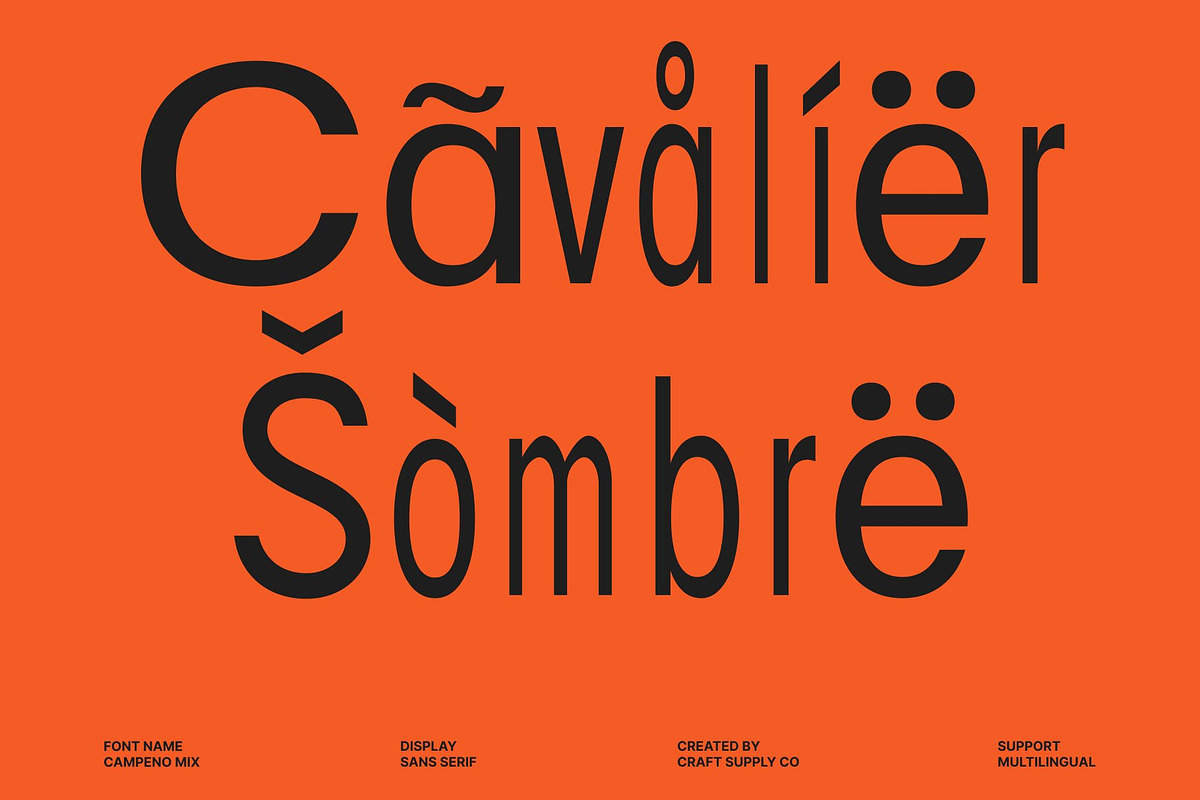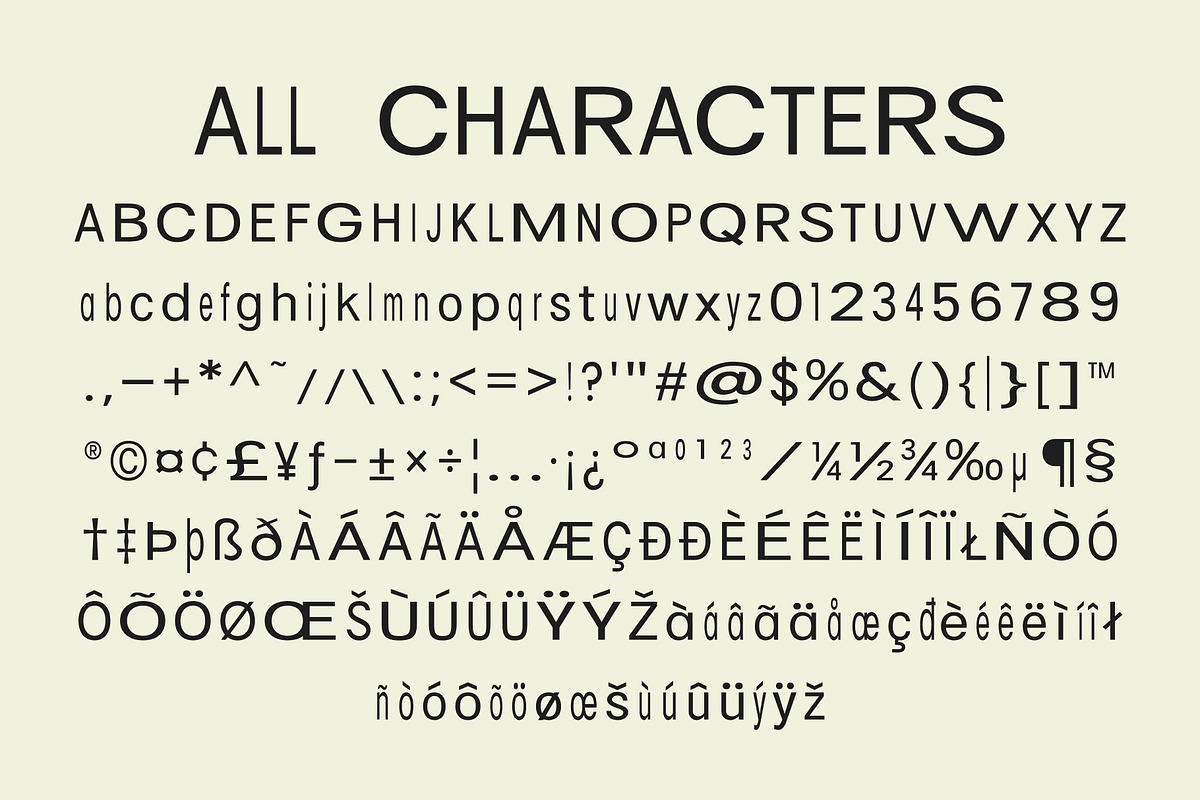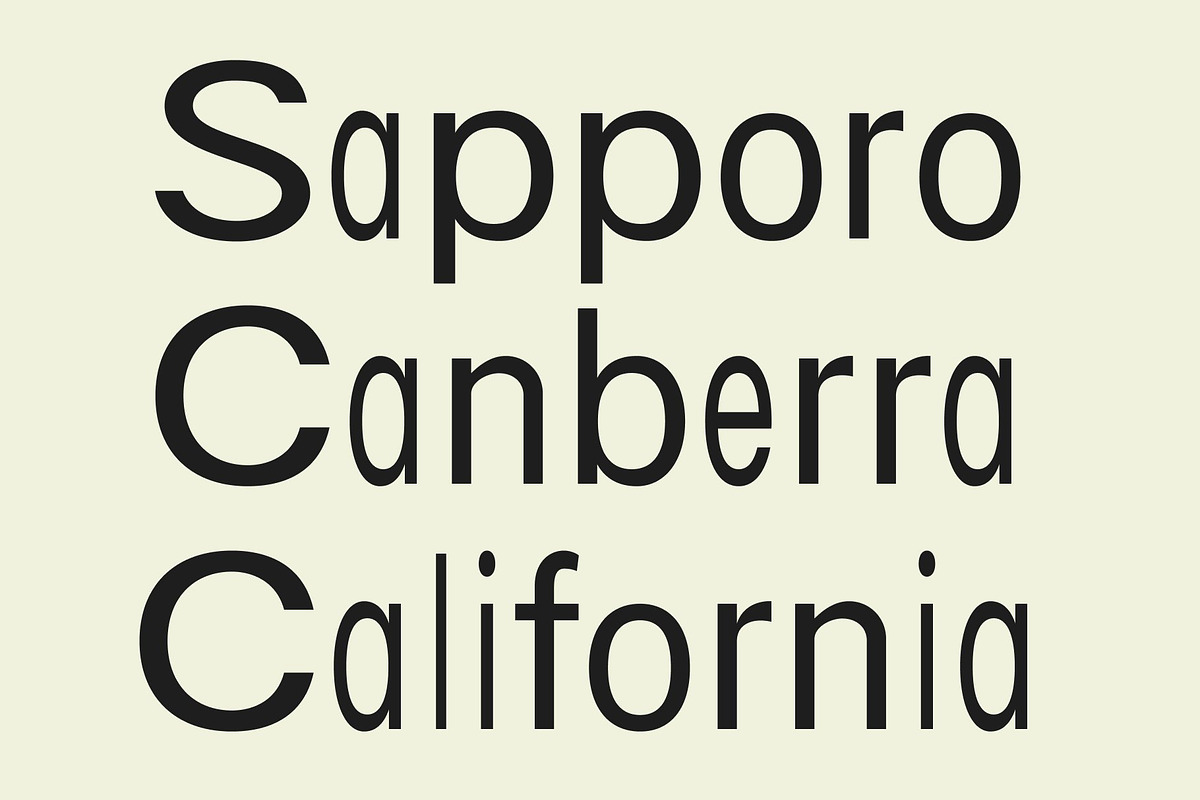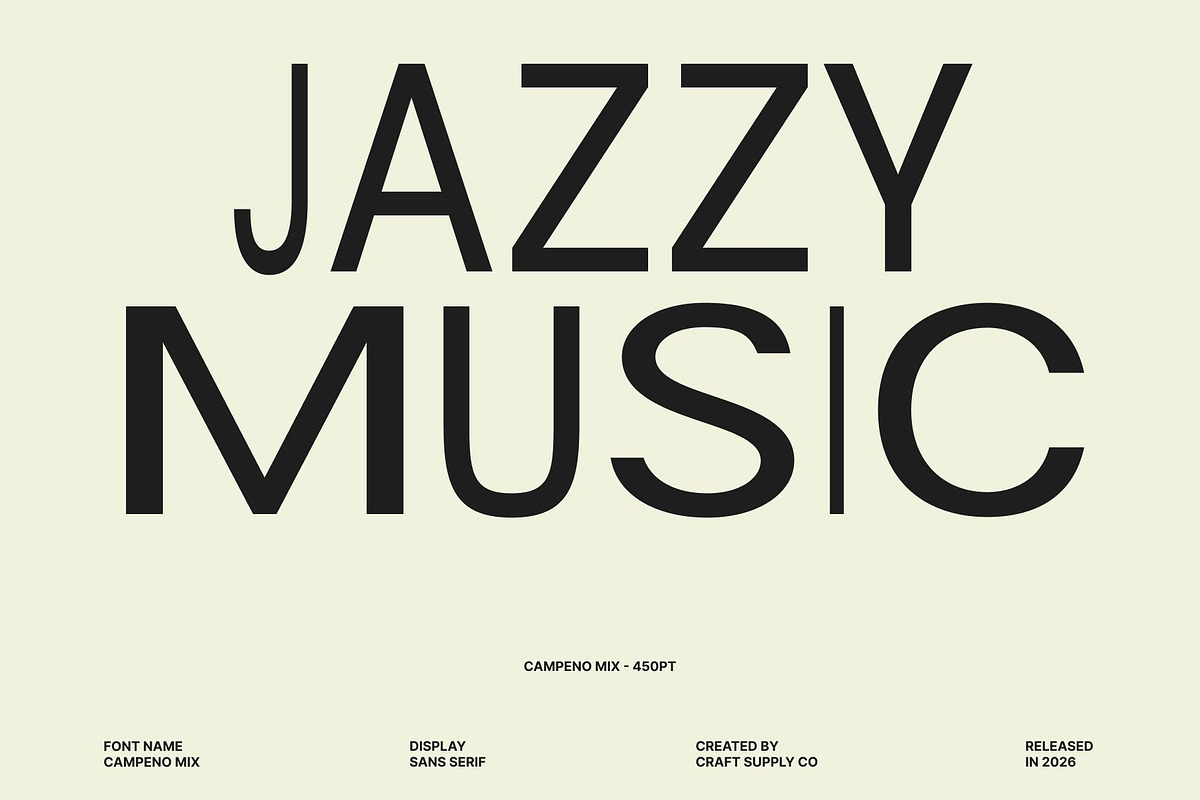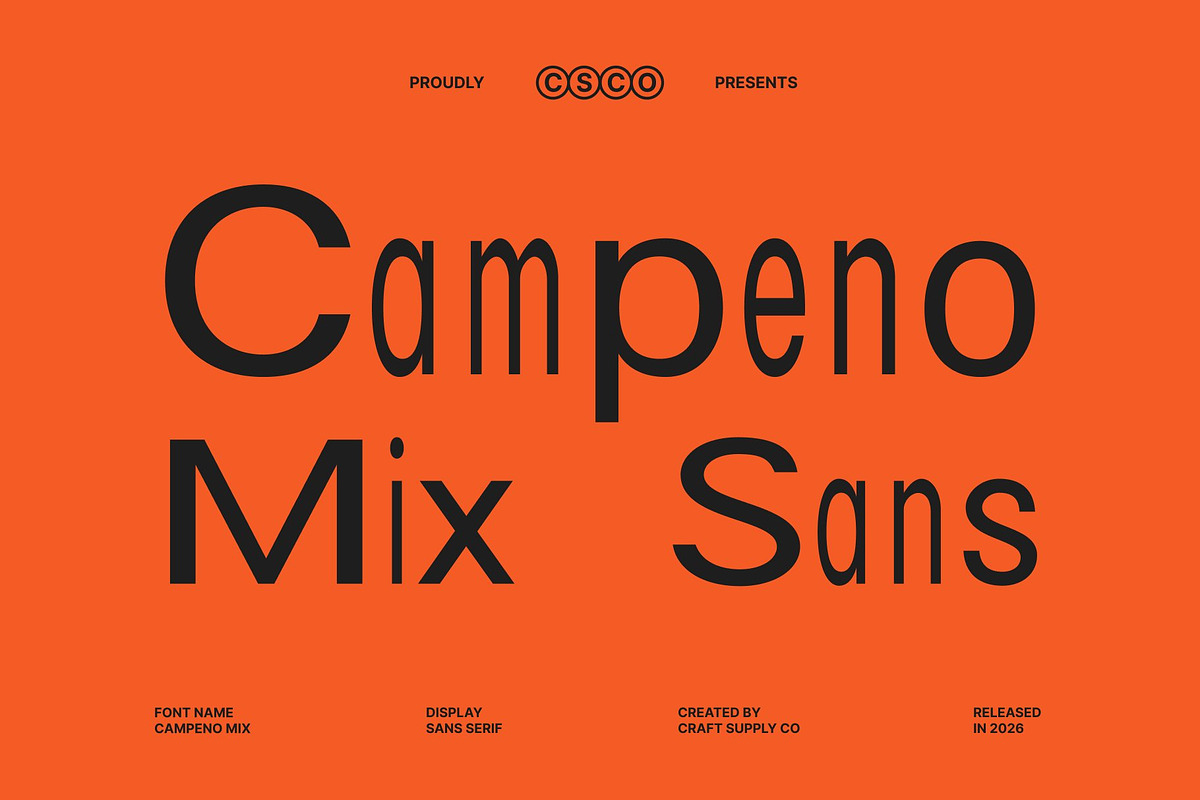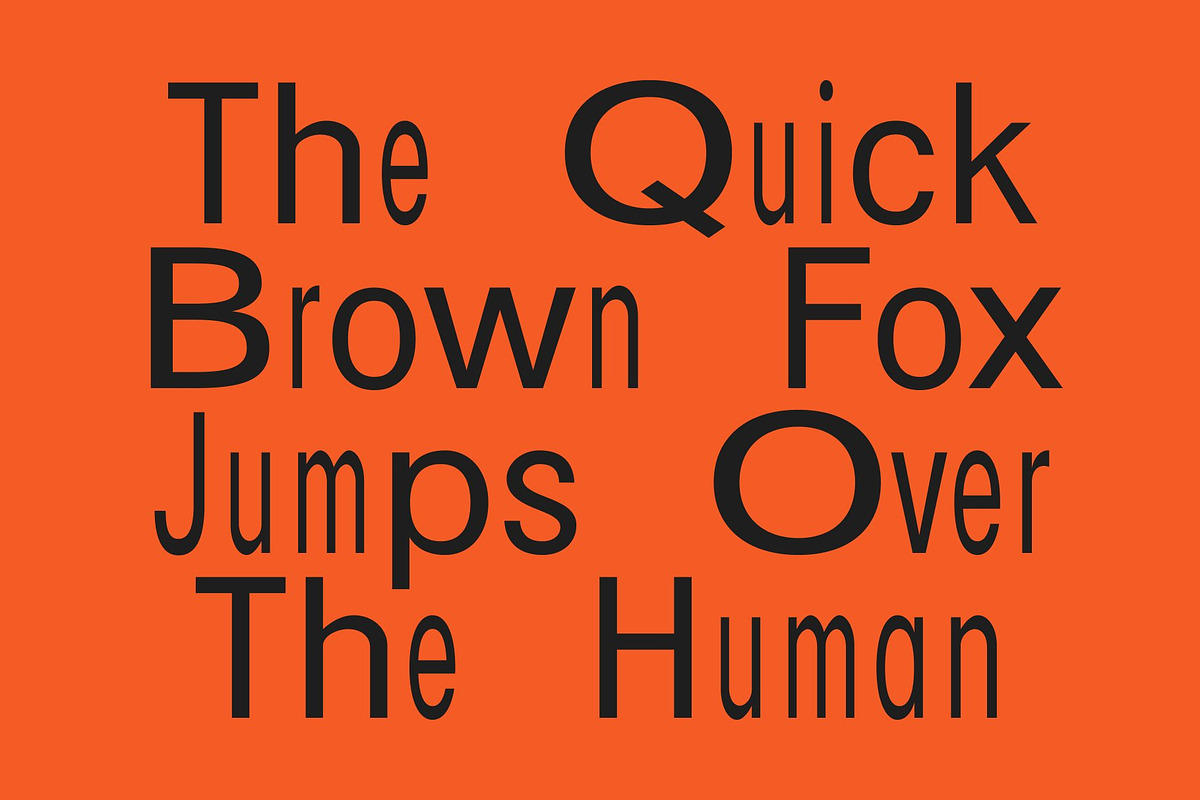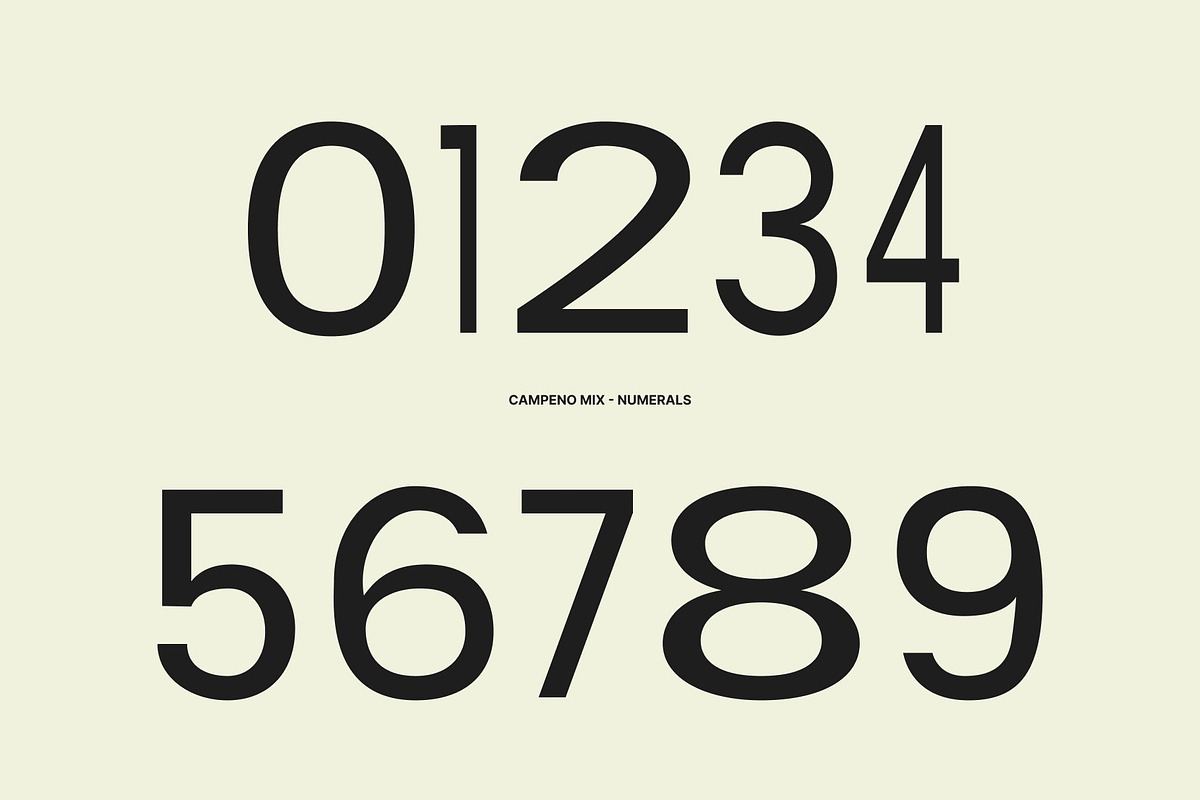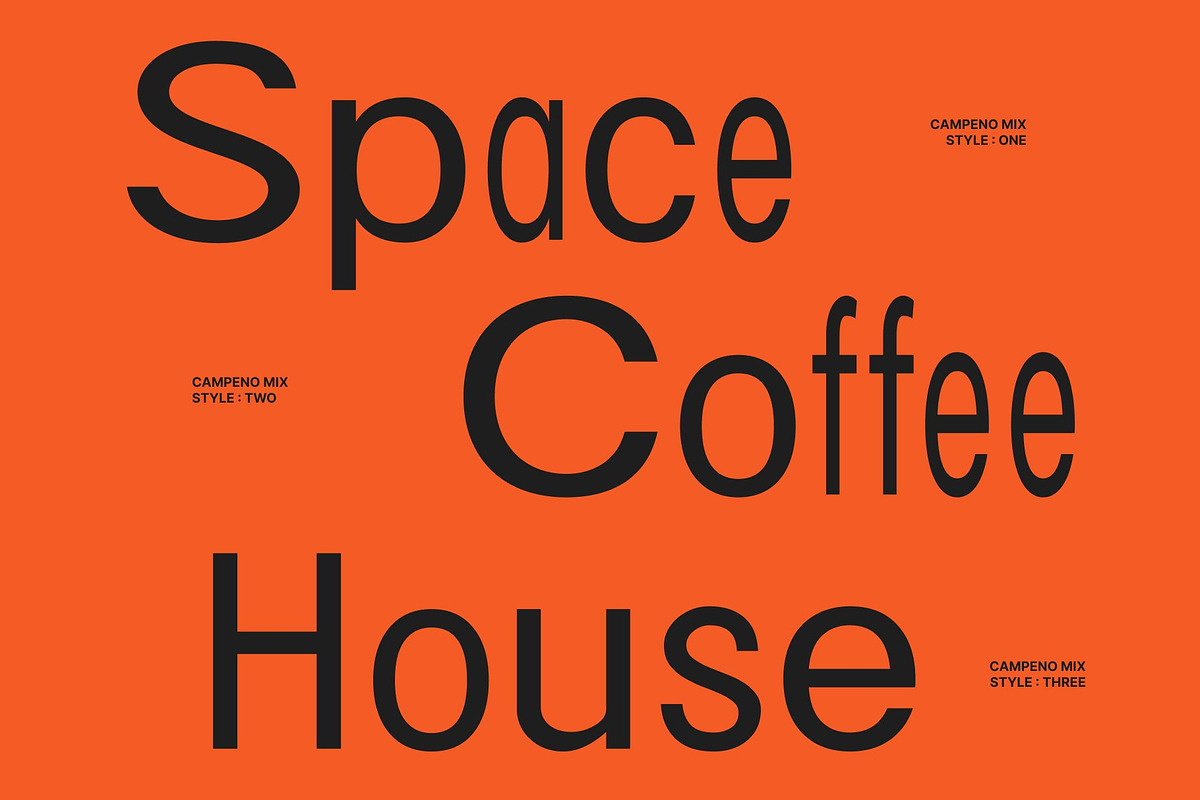
Campeno Mix
Campeno Mix – Geometric Sans Serif: Precision, Clarity, and Contemporary Editorial Style
Geometric Sans Serif with Mixed Style Character This is a geometric sans serif font designed to embody structure, precision, and modern visual balance. Built with clean geometric forms and a refined contemporary approach, this typeface introduces a distinctive mixed-style concept that adds rhythm and personality to every composition. It transforms minimal typography into a dynamic and sophisticated design element suitable for a wide range of creative applications.
A Balanced Blend of Bold and Regular Letterforms The defining feature of this font lies in its thoughtful combination of bold and regular characters. This mixed-style approach creates subtle contrast and a smooth typographic hierarchy, allowing layouts to feel visually engaging while maintaining clarity and order. The interplay between weights adds movement and modern character without disrupting the font’s clean geometric foundation.
Geometric Precision with Editorial Elegance This font embraces geometric precision through balanced proportions, sharp construction, and consistent spacing. Its structured appearance enhances readability and creates a polished editorial aesthetic that feels modern and professional. The clean geometry allows the content to remain the focus while still adding visual sophistication to the overall design.
Perfect for Editorial, Branding, and Modern Layouts From magazines and websites to branding and long-form editorial projects, this font adapts effortlessly across different design contexts. Its clarity ensures comfortable reading experiences, while its contemporary personality gives headlines and layouts a stylish visual impact.